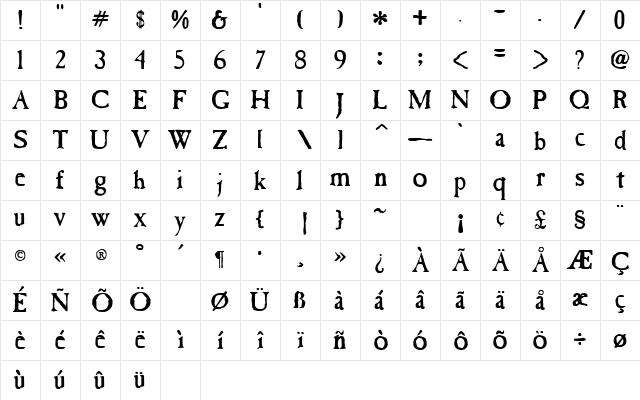
Ransom Plain Free Font
Ransom Plain
Design Context for Ransom
Ransom is a composed and adaptable typeface that performs quietly and consistently across a wide range of design contexts.